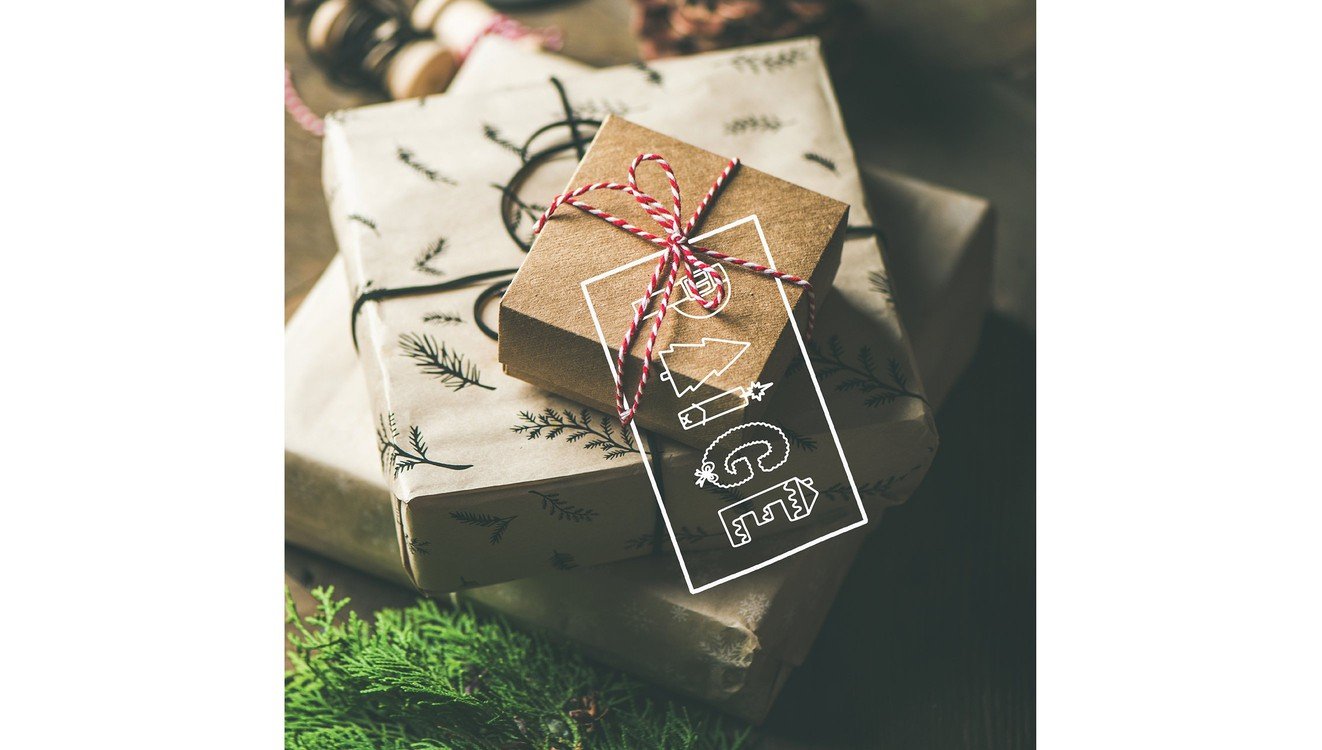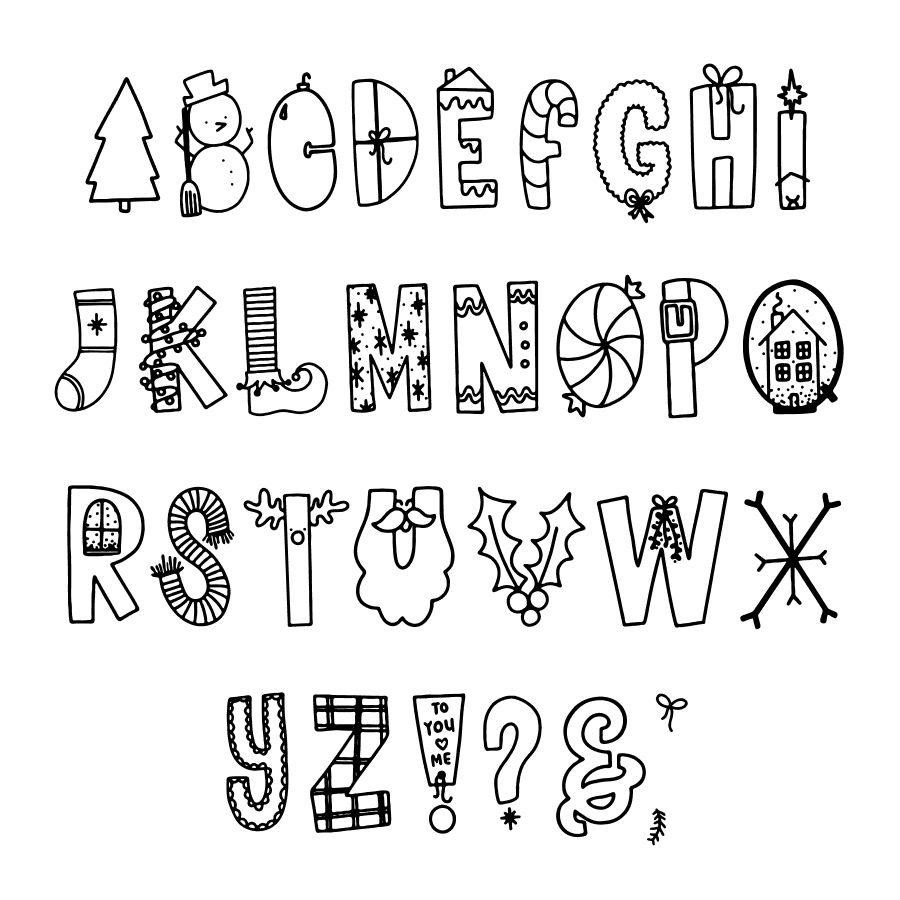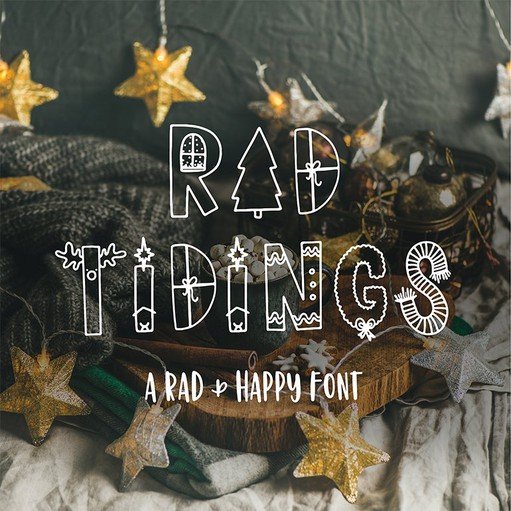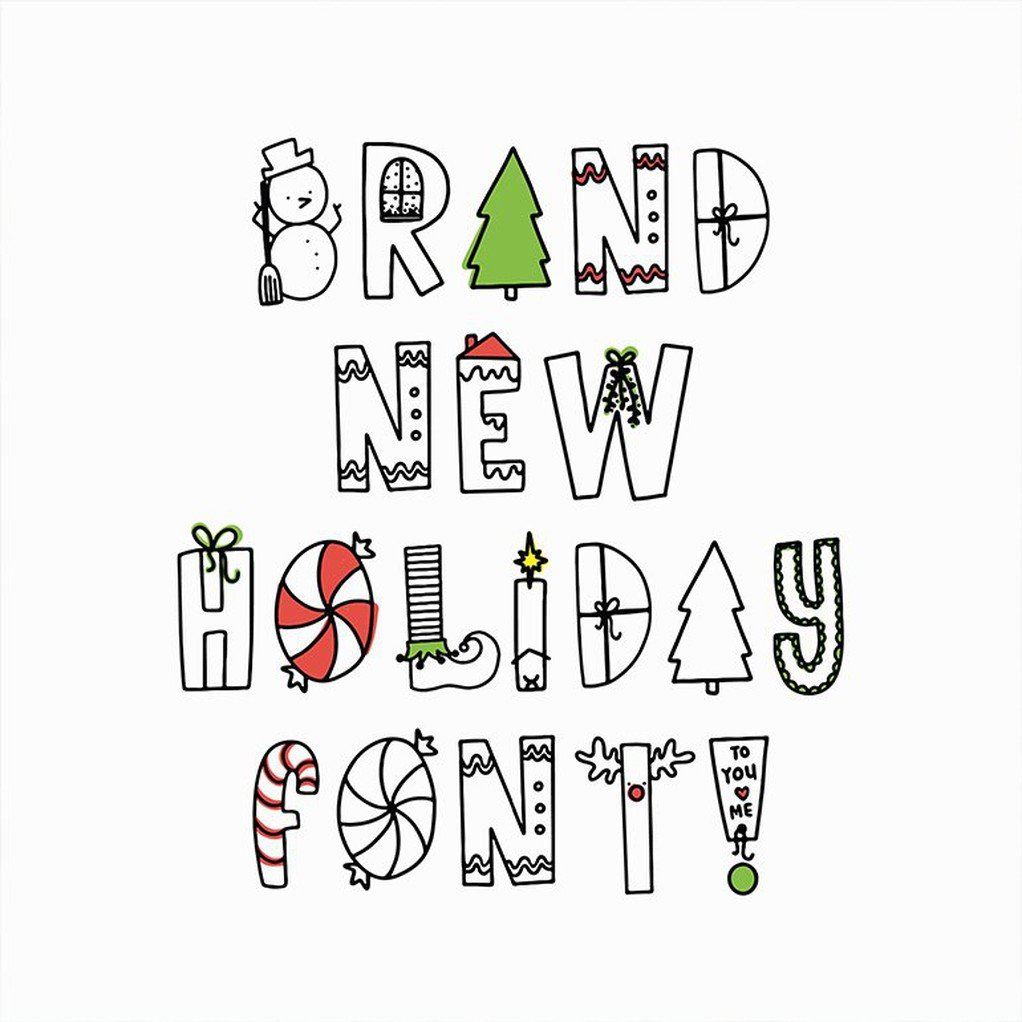
Rad Tidings Font
Hi friend, I’ve got something awesome for you—this Rad Tidings Digital Font, and I can’t wait for you to add some holiday magic to your projects! I designed this font to bring a festive, joyful vibe with a touch of Rad & Happy charm, making it perfect for your holiday cards, gift tags, or any creation that needs a little seasonal sparkle.
Why It’s Awesome:
- Made Just for You – I designed it to spread holiday cheer!
- Festive & Fun – Adds a joyful vibe to your projects.
Why Choose the Rad Tidings Digital Font?
This font isn’t just about letters—it’s about adding a sprinkle of holiday joy to your creations, whether you’re crafting for fun or for your business. It’s the perfect way to make your projects shine—I’m so stoked for you to try it!